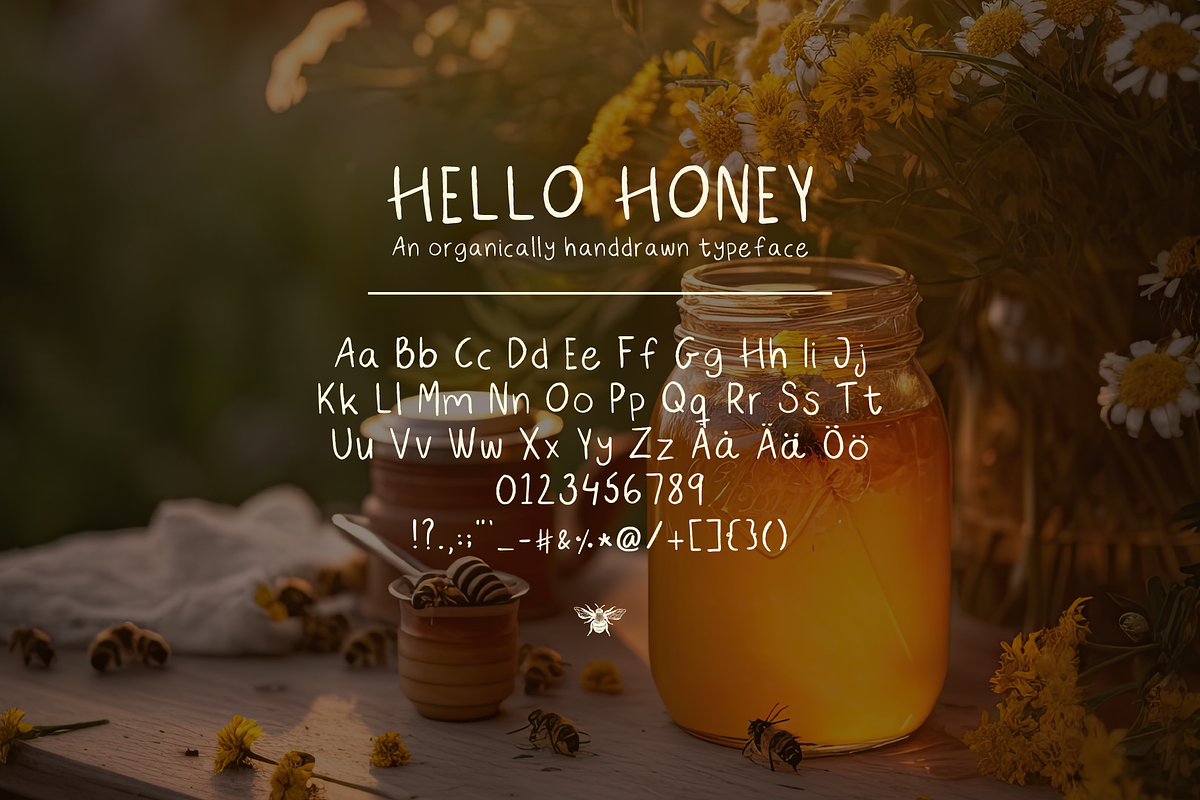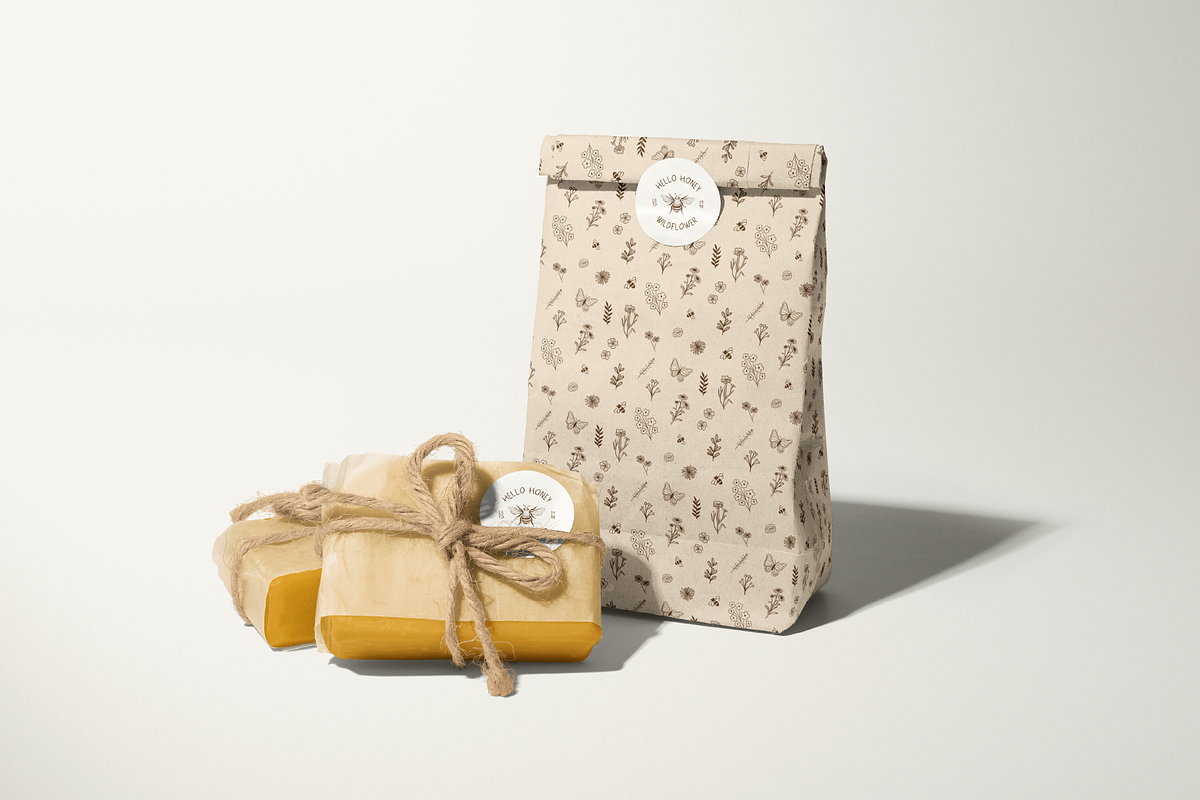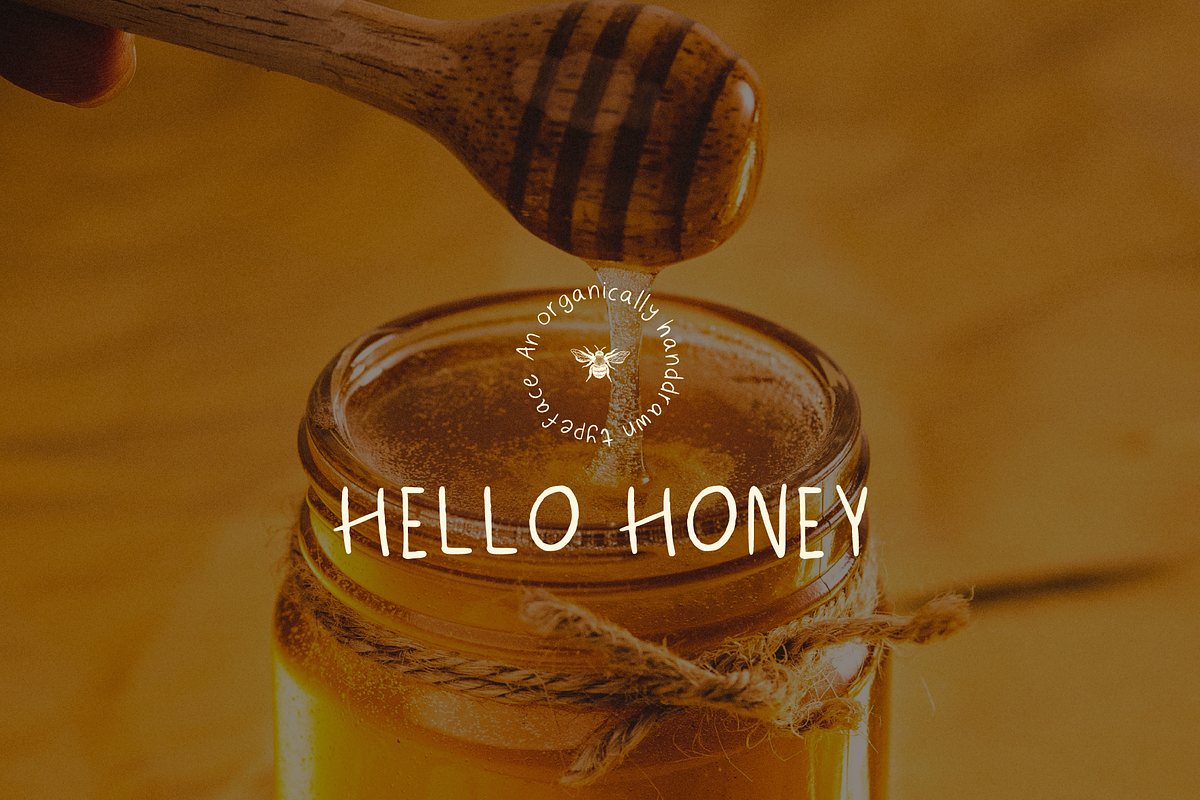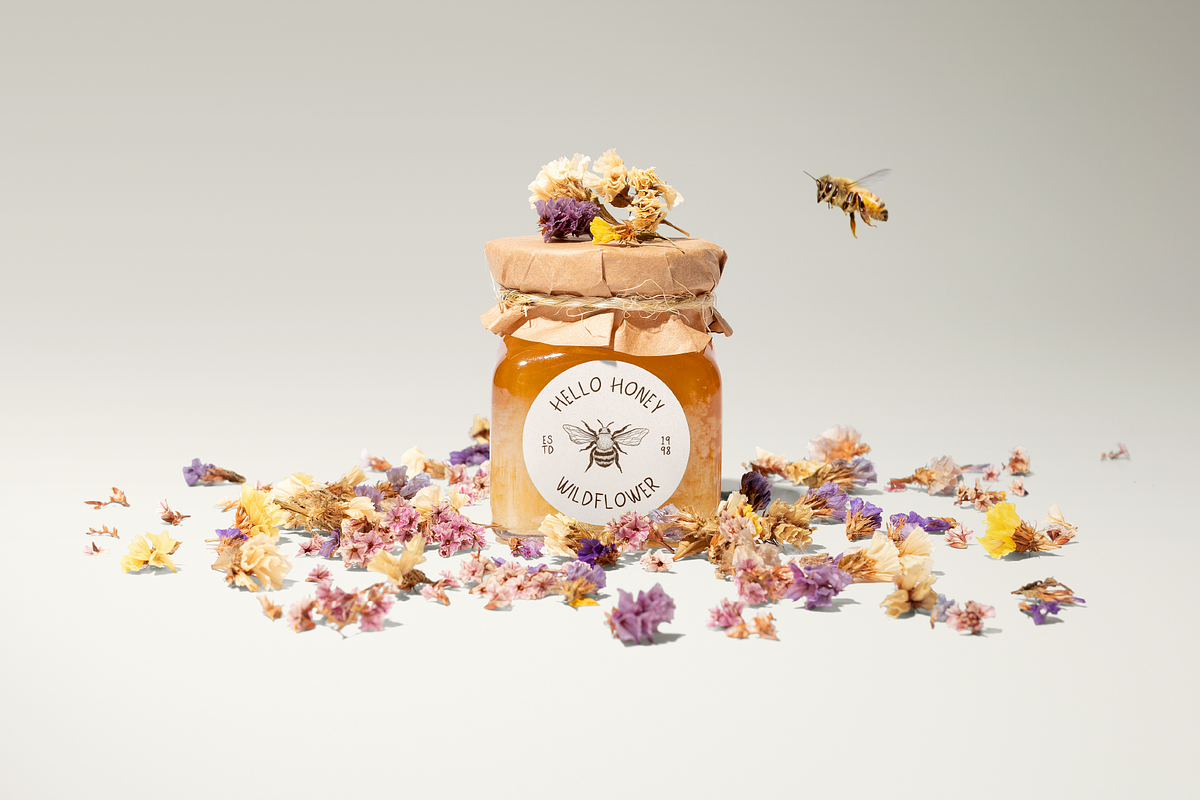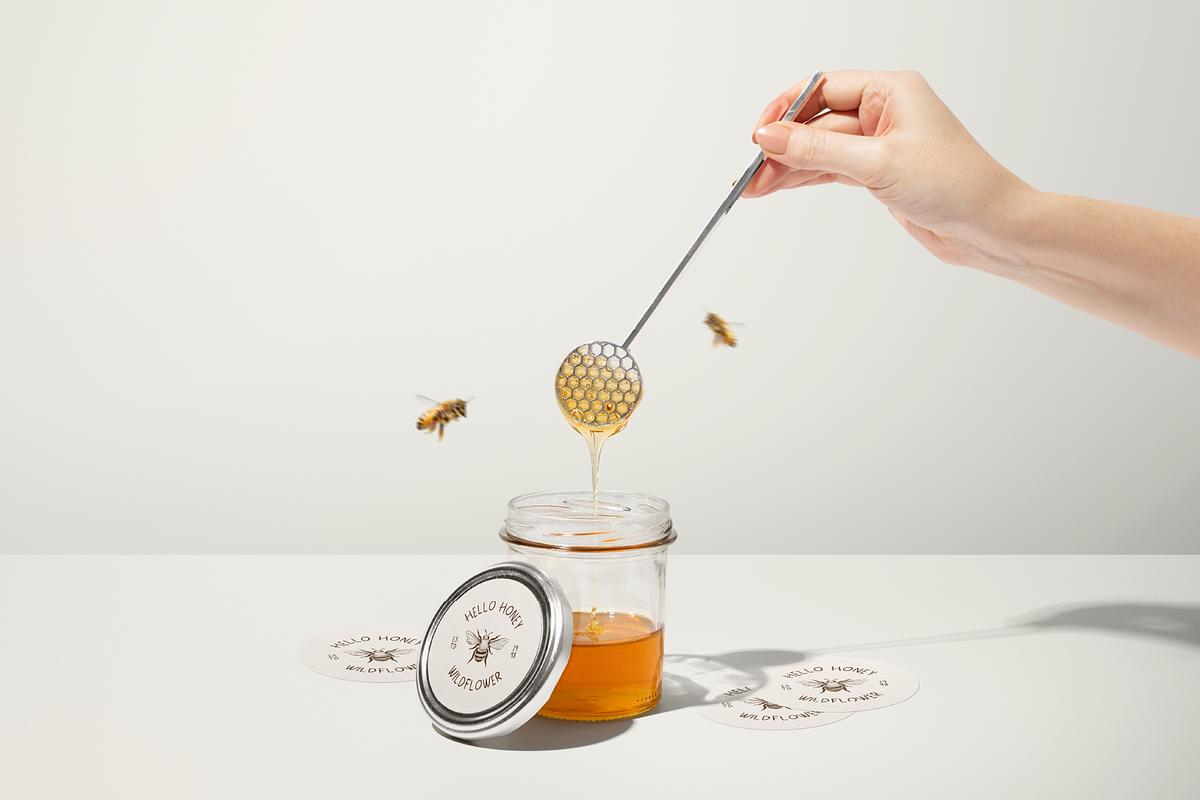
HELLO HONEY ORGANIC TYPEFACE
"Hello Honey" is a uniquely handdrawn typeface designed to imbue any project with an organic, wholesome, and authentic vibe. Crafted with care, its fluid and natural strokes mimic the personal touch of handwriting, making it perfectly suited for brands and products that celebrate natural beauty and sincerity. This typeface stands out for its ability to convey warmth and genuineness, making it an ideal choice for organic products, artisanal goods, and any brand aiming to establish a connection through a down-to-earth and approachable aesthetic. Whether it's for packaging, branding, or digital design, "Hello Honey" offers a touch of handcrafted charm that resonates with a look and feel that's both inviting and unmistakably genuine.